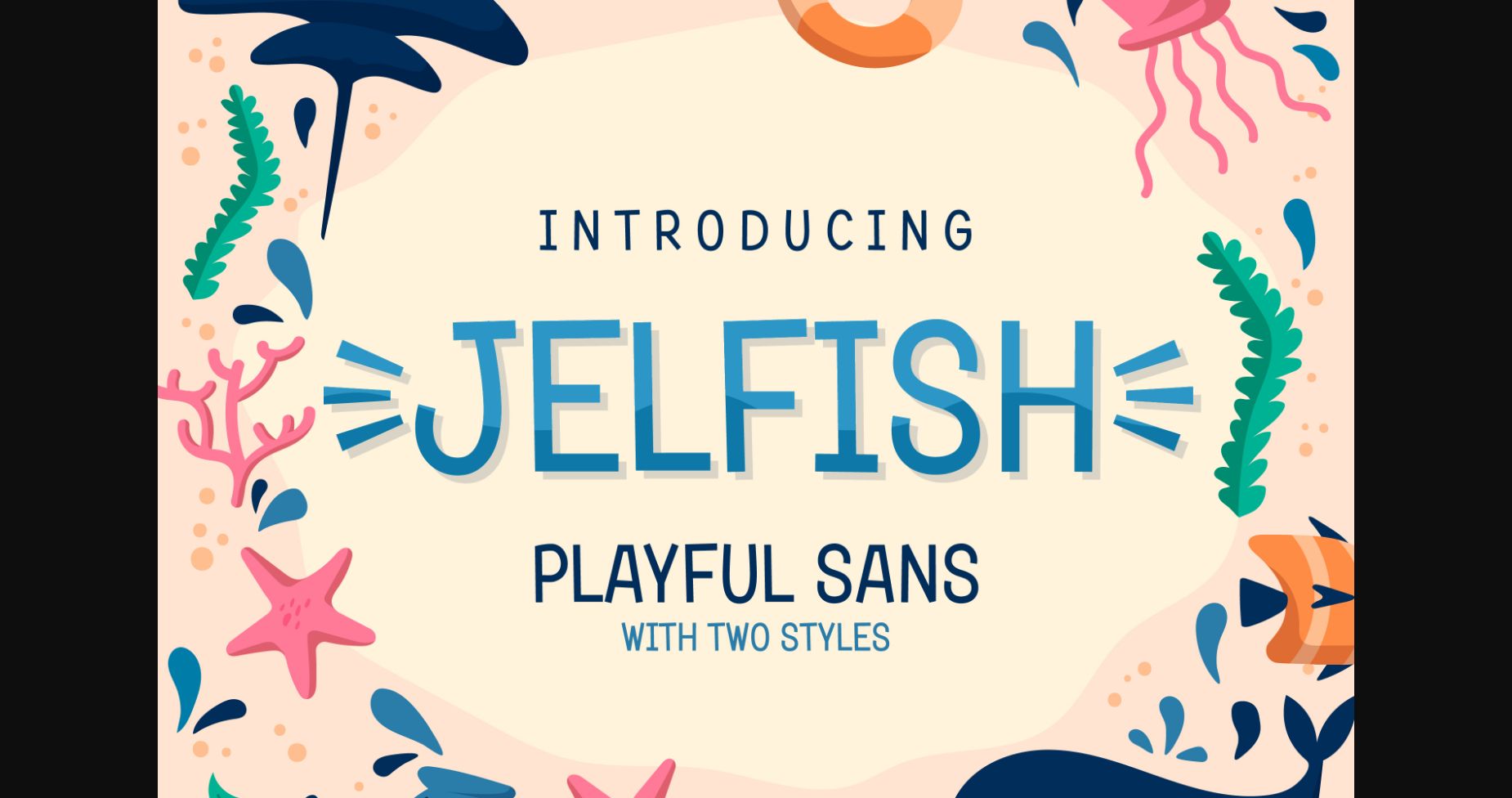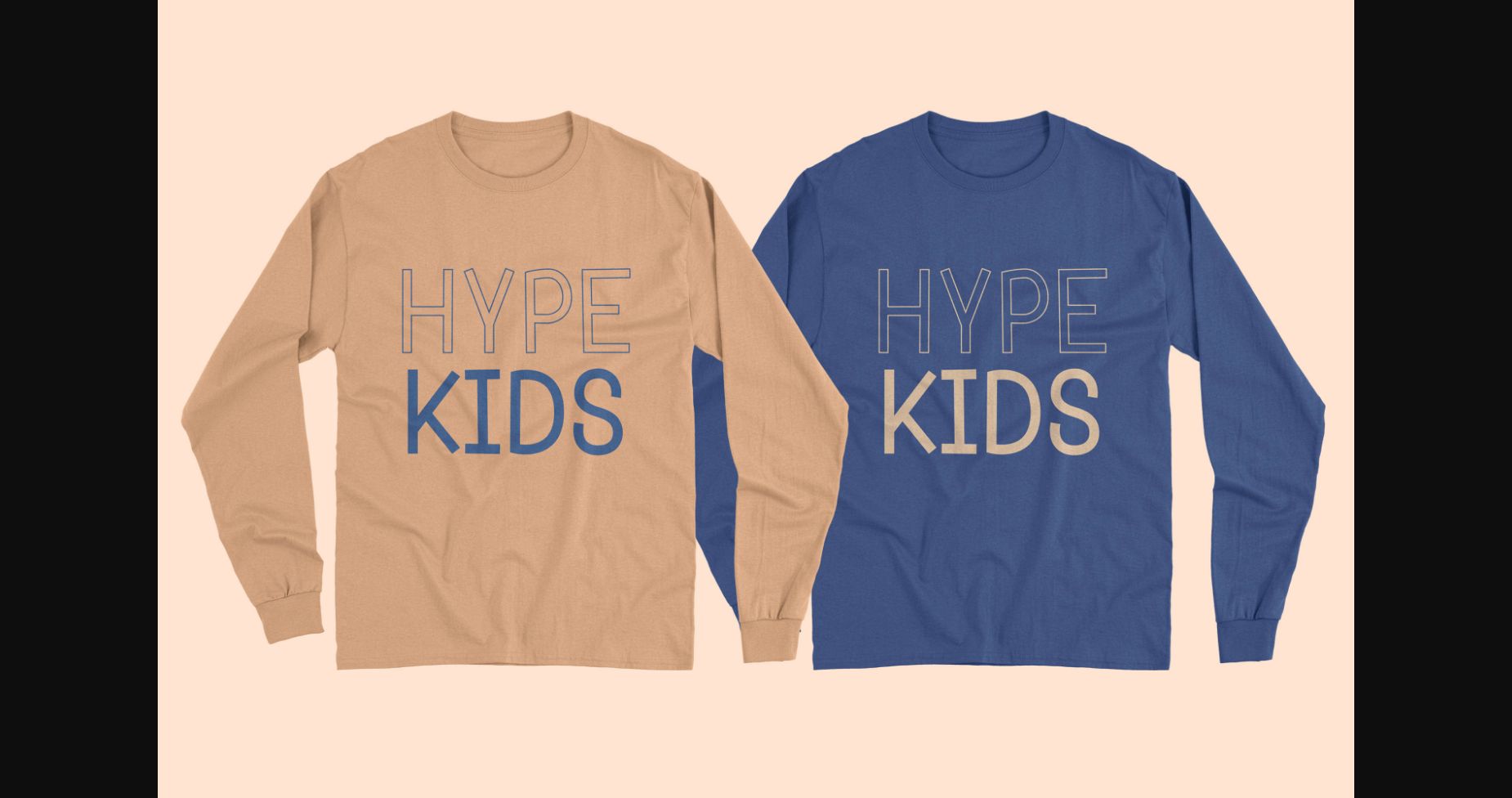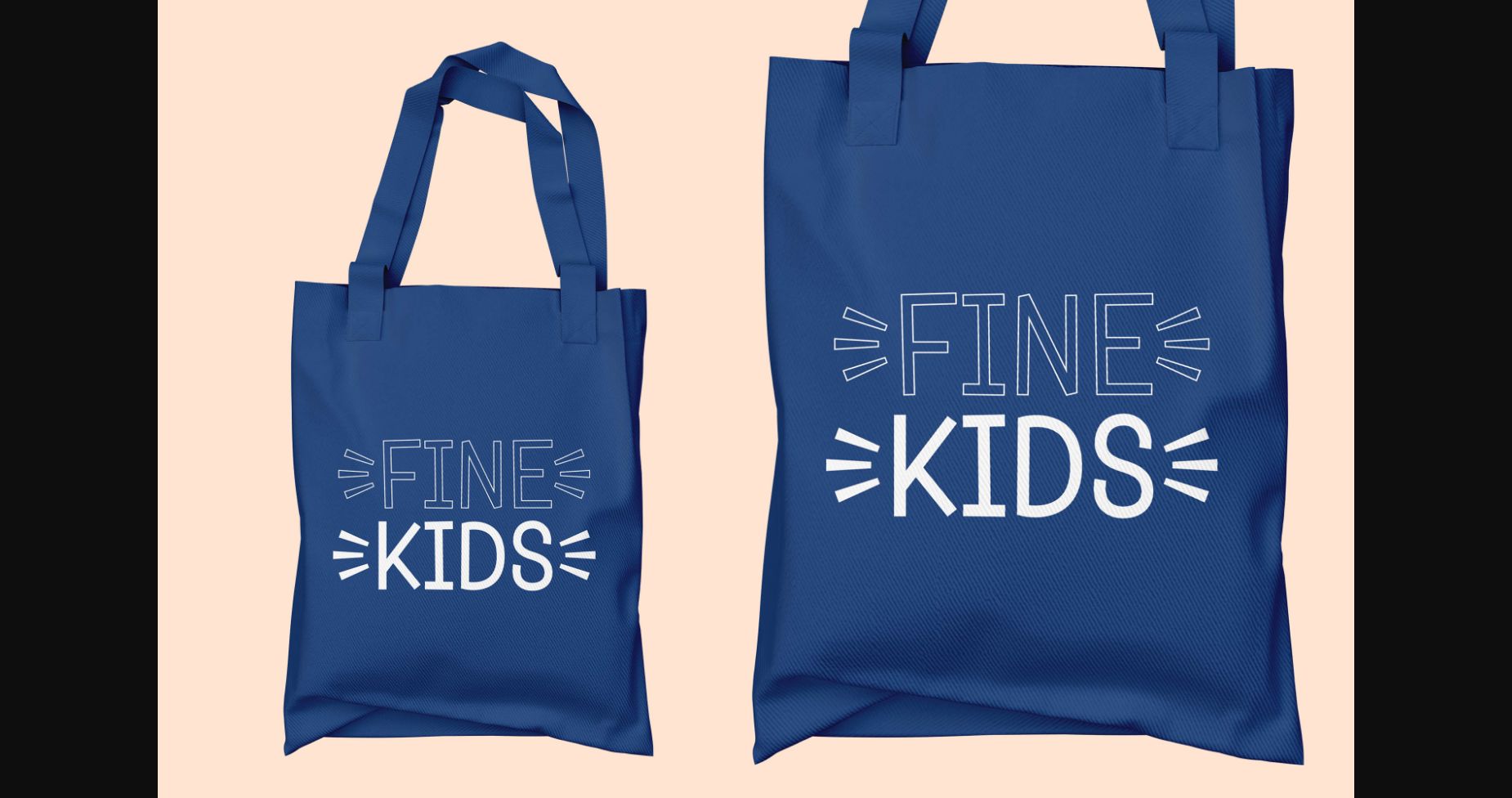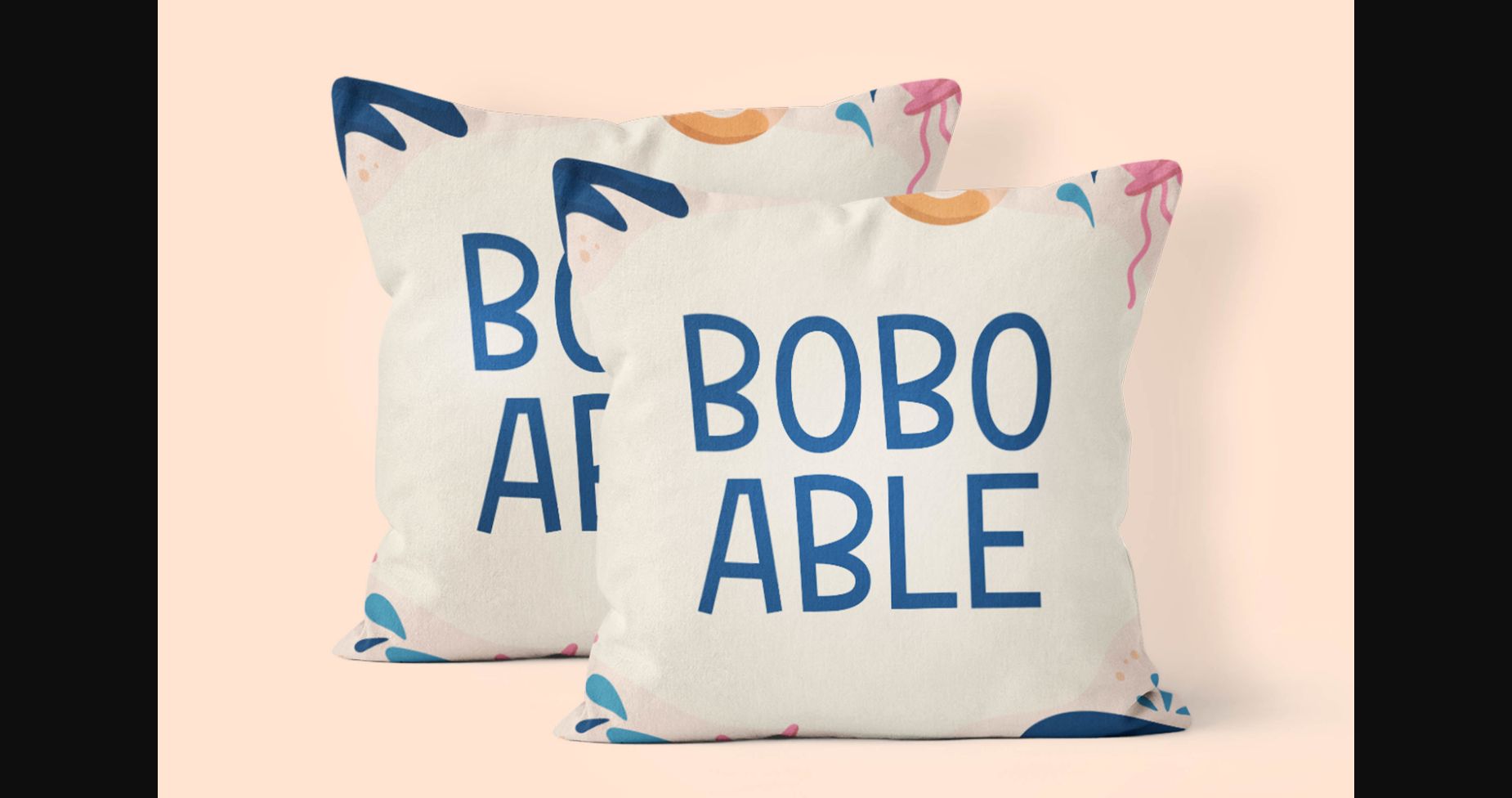
About Jelfish Font
Jelfish is a fun and playful sans serif font that perfectly matches a kid’s brand who wants to look different. This font is a perfect match for design projects such as poster design, print ads, digital ads, headlines, t-shirts, crafts, and so on. Go download it now!